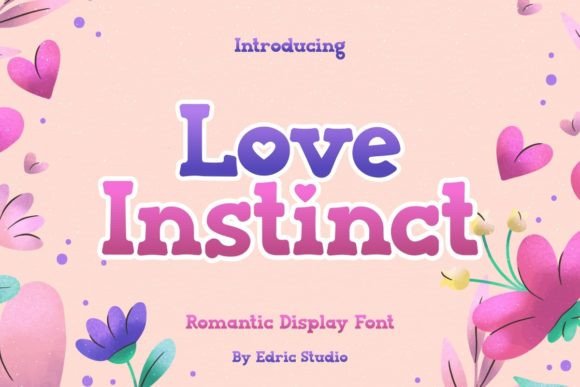
Get immersed in the enchanting world of Love Instinct, where fonts become art and charm takes center stage! Step into a realm where letters dance with a rhythm of joy, captivating all who behold them. With Love Instinct's amicable display font, your designs will radiate warmth and friendliness, creating an immersive experience for your audience.
Crafted with meticulous care by the talented EdricStudio, Love Instinct is a display font that embodies the true essence of playfulness and approachability. The font's rounded and whimsical letterforms exude a sense of comfort and familiarity, making it a perfect choice for designs that aim to engage and connect with viewers. Its graceful curves and elegant flourishes bring a touch of enchantment to any project, whether it be a heartfelt greeting card, a vibrant poster, or a memorable logo.
The magic of Love Instinct lies in its versatility. As a display font, it shines brightest when given ample space to dance and twirl. Its playful nature makes it ideal for crafting eye-catching headlines, vibrant social media posts, and captivating marketing materials. Let your imagination soar as you explore the endless possibilities of this delightful font, weaving enchantment into every word you write.
Love Instinct's charm extends beyond its captivating appearance. Its clean and legible style ensures that your message remains clear and impactful. Its professional and polished feel adds a touch of sophistication, making it suitable for a wide range of projects. Whether you're designing a corporate presentation, a wedding invitation, or a heartfelt letter, Love Instinct will elevate your words with grace and poise.
Choosing Love Instinct is more than just selecting a font; it's an invitation to embrace a world where creativity flourishes and joy abounds. Let this remarkable font inspire you to create designs that captivate, engage, and leave a lasting impression. Experience the magic of Love Instinct today and let your designs bloom with warmth, playfulness, and endless charm!